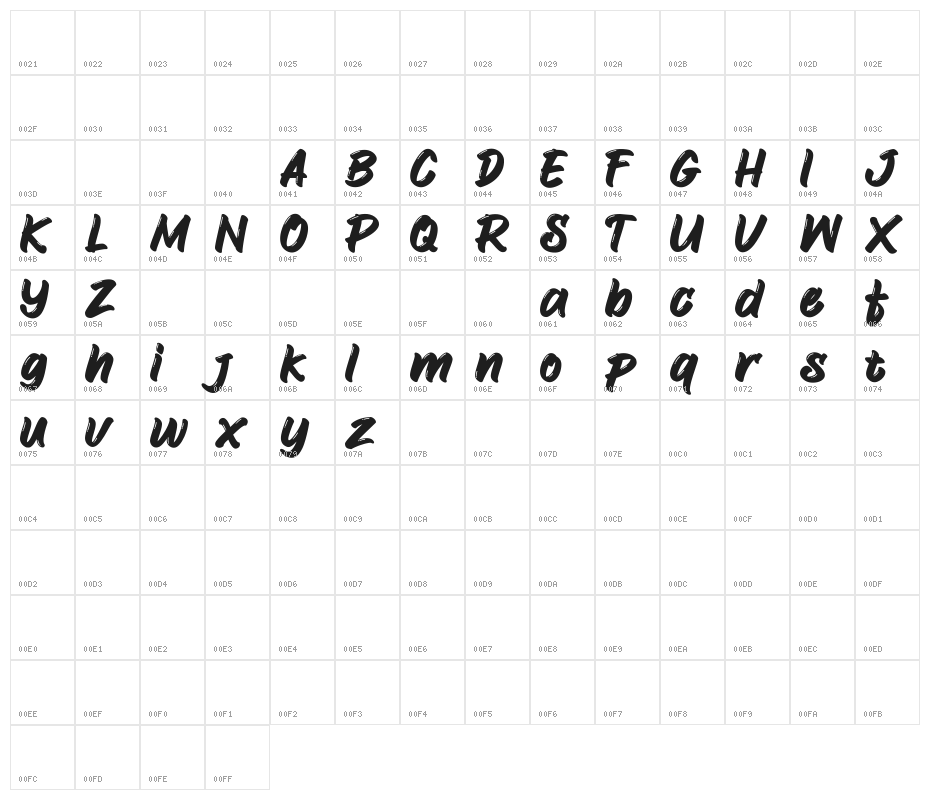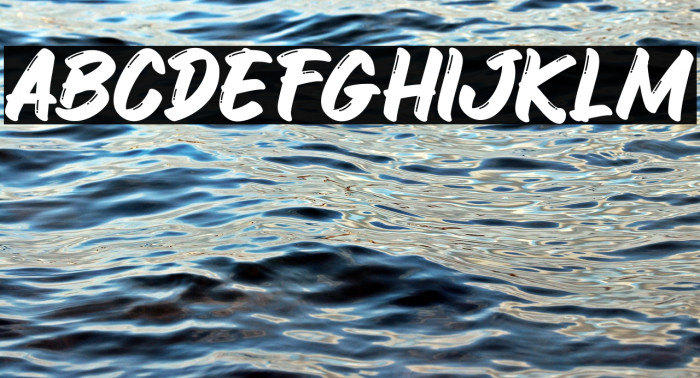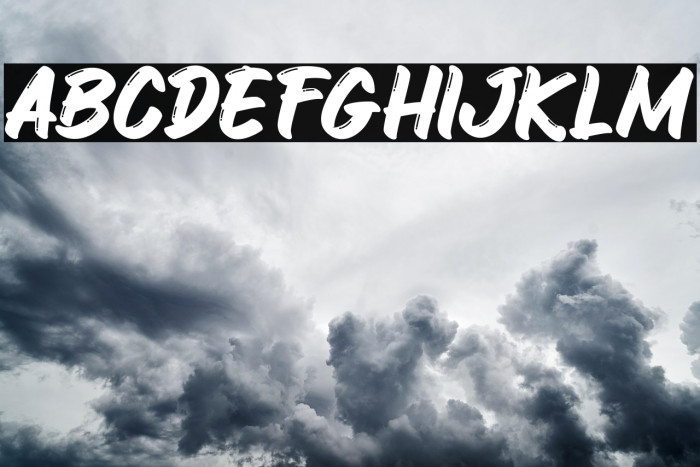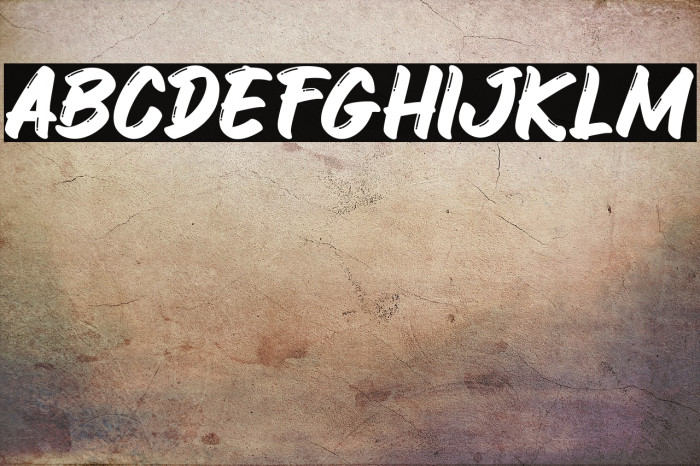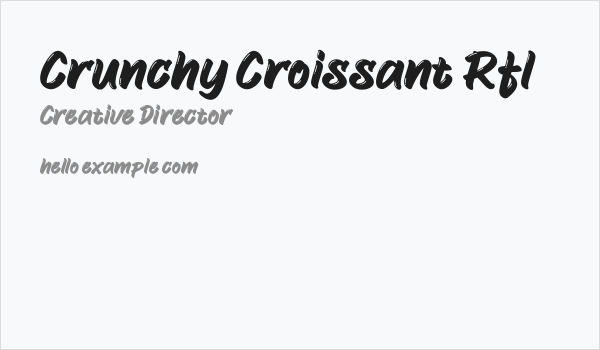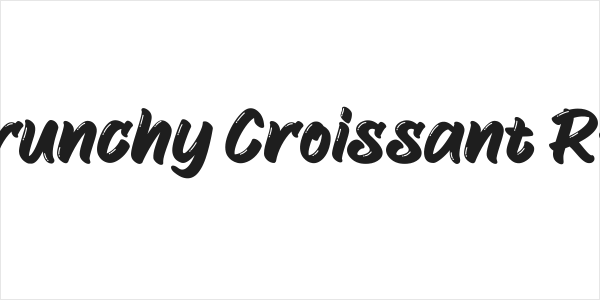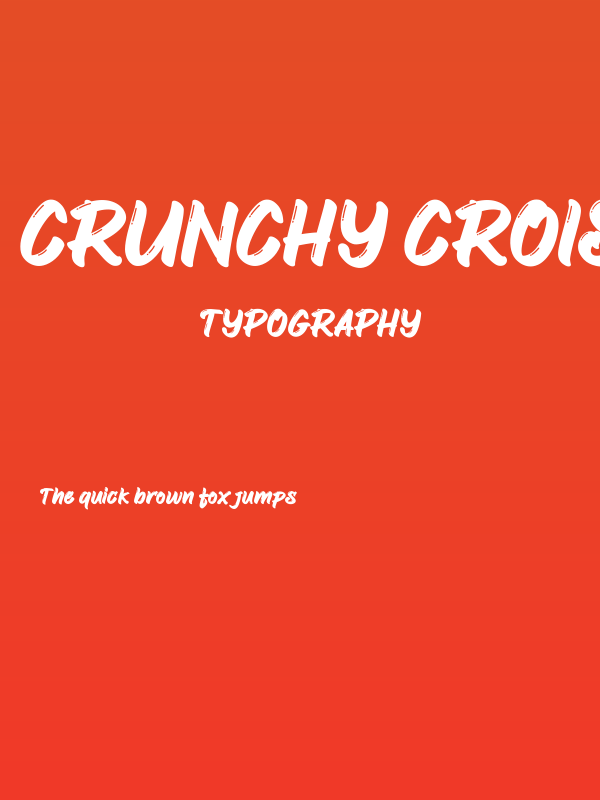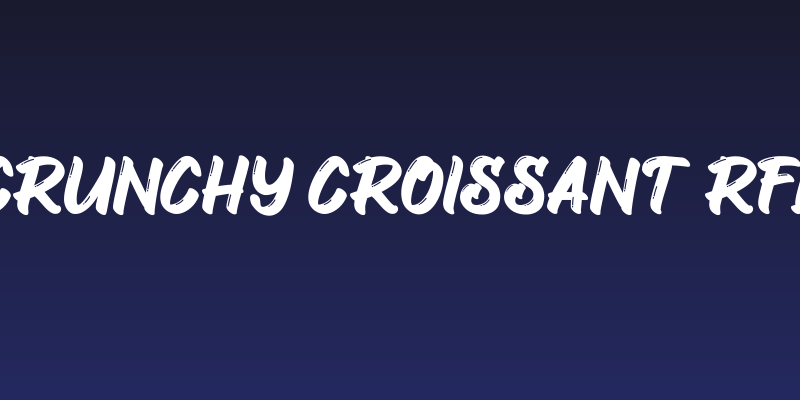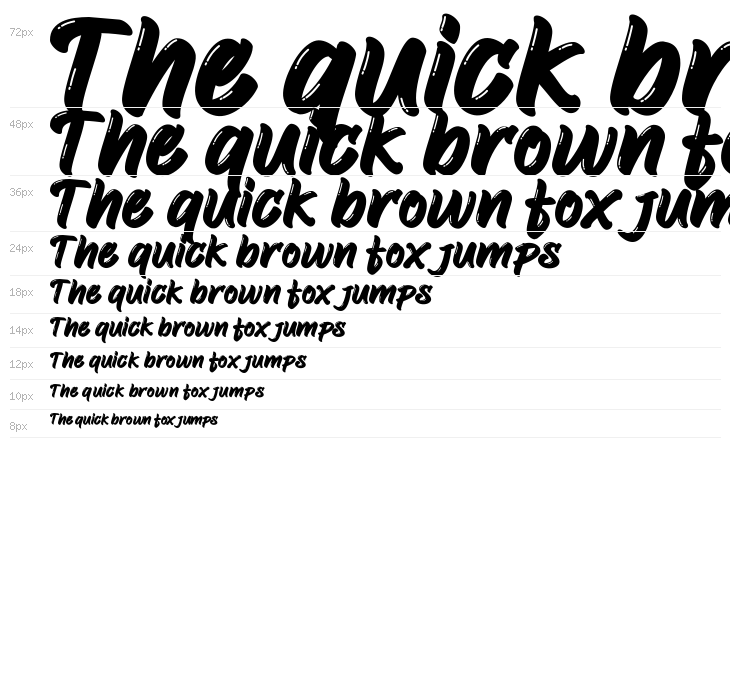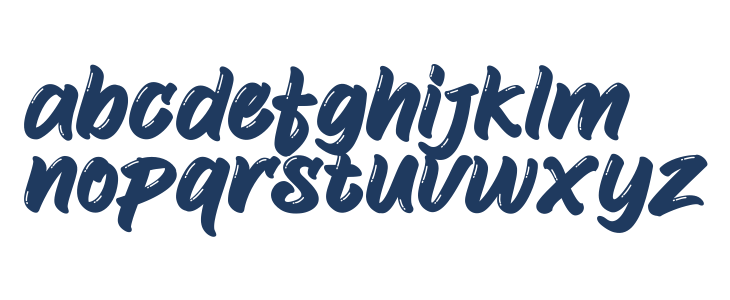
Crunchy Croissant Rfl Font
Crunchy Croissant Rfl Description
This font features a bold, energetic script style with a brush-like texture that gives it a dynamic and lively appearance. The letters are connected in a fluid manner, creating a sense of movement and rhythm. The strokes are thick and expressive, with varying widths that add a playful and artistic touch. The overall design is modern and eye-catching, making it suitable for creative and informal projects. The uppercase and lowercase letters maintain a consistent style, ensuring readability while retaining their unique flair.